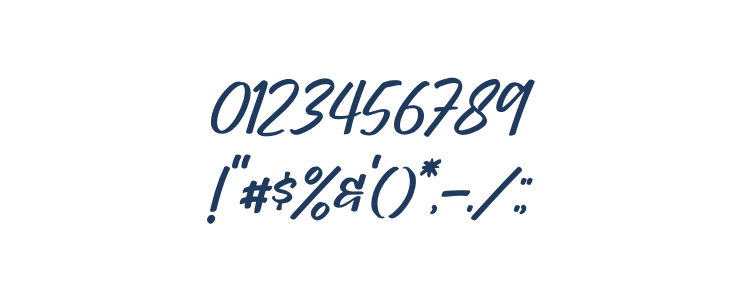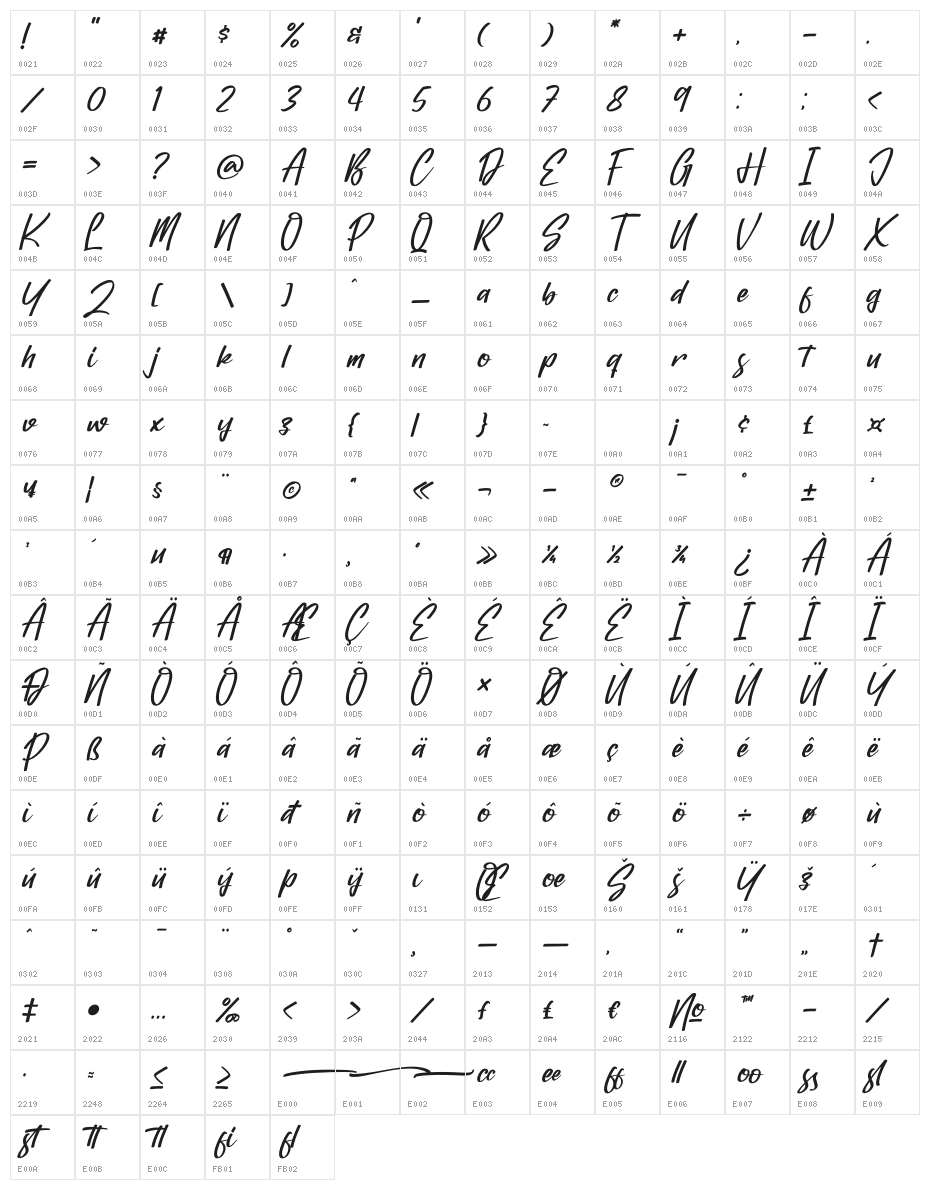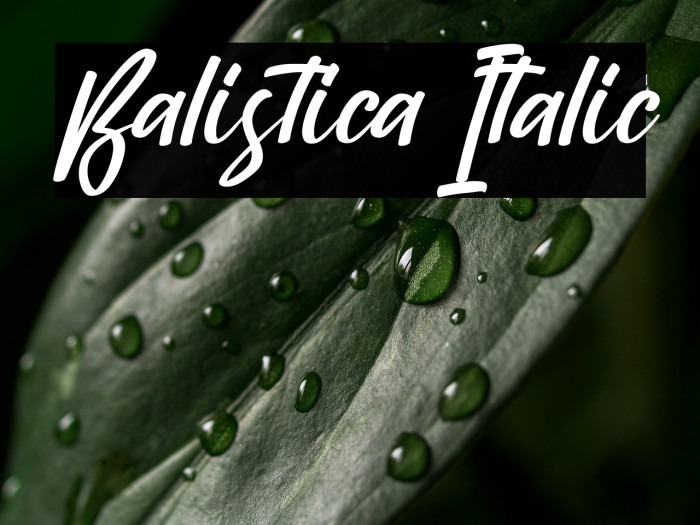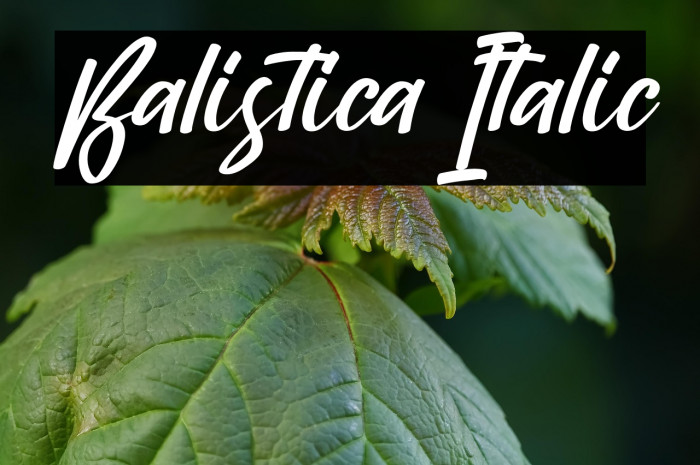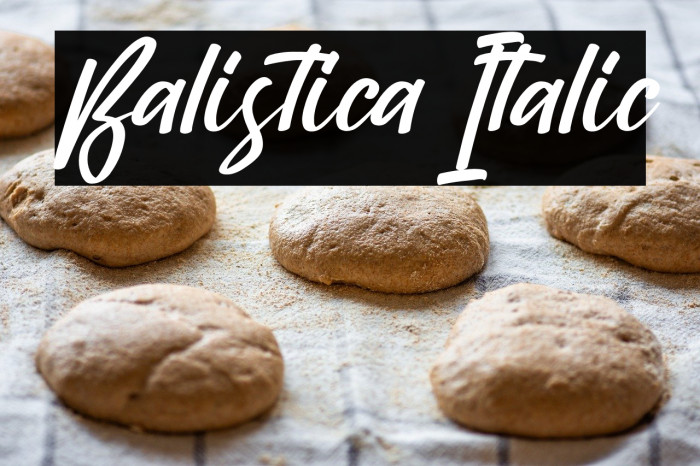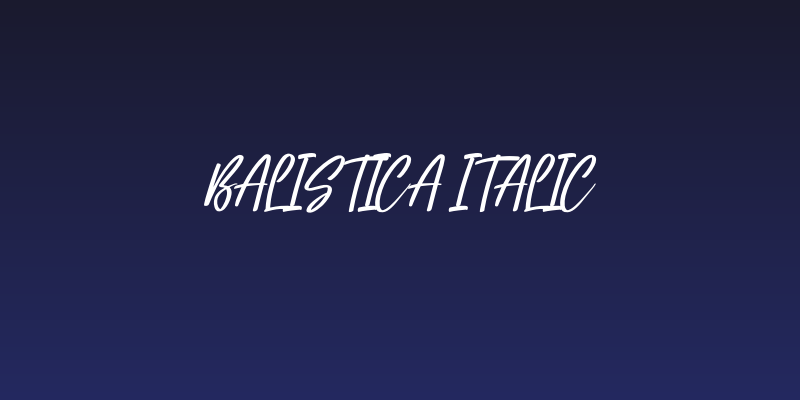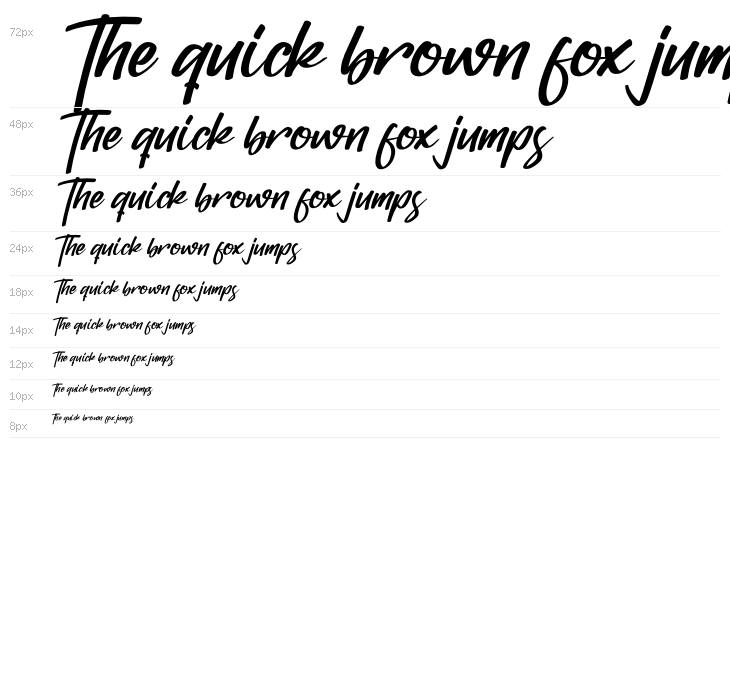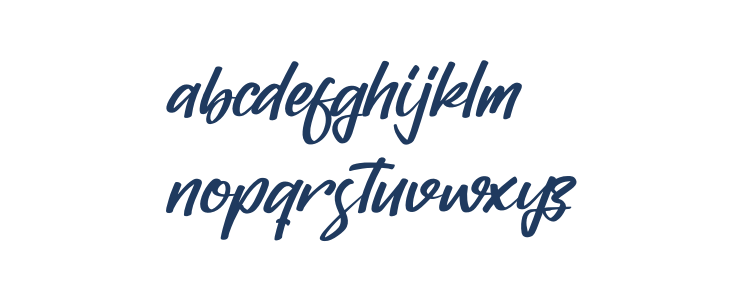
Balistica Italic Font
Balistica Italic Description
This font features a dynamic and flowing script style, characterized by its slanted, italicized form. The letters are connected in a cursive manner, giving it a handwritten appearance. The strokes are bold and confident, with a consistent thickness that adds to its legibility. The uppercase letters are slightly larger and more pronounced, while the lowercase letters maintain a smooth and elegant flow. The numerals and special characters are designed to match the overall style, ensuring a cohesive look across all text elements.
| Proposed Projects | Ideal for creative projects such as invitations, greeting cards, branding, and logos where a personal touch is desired. |